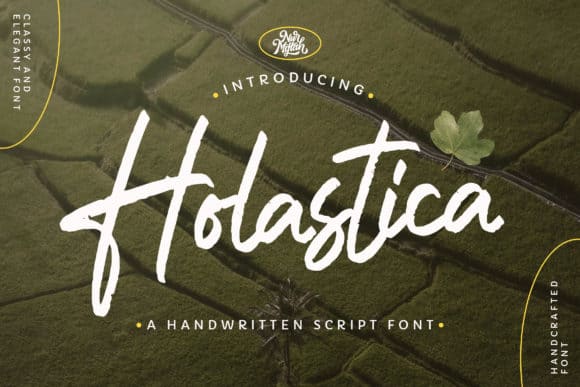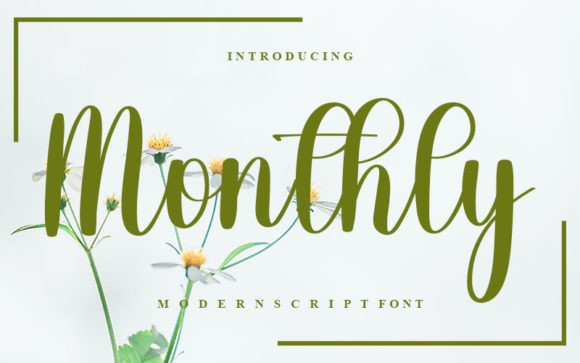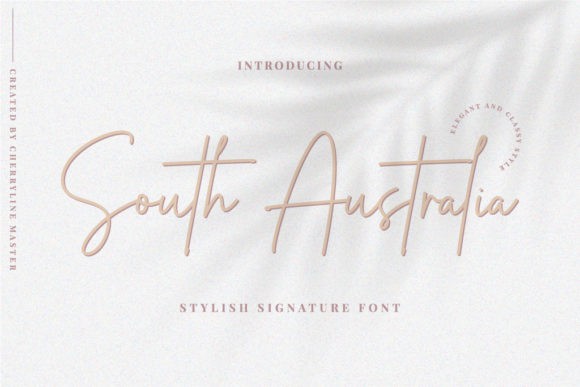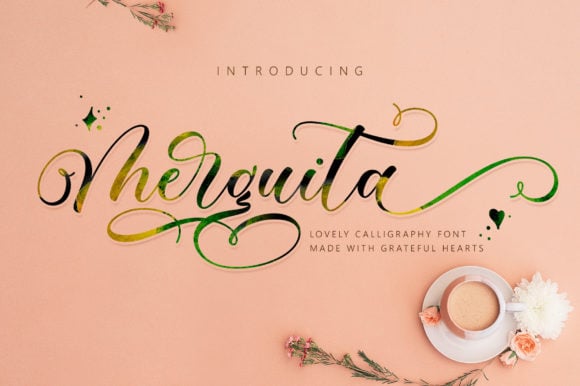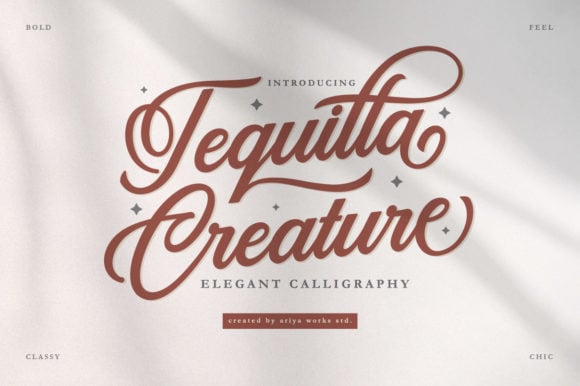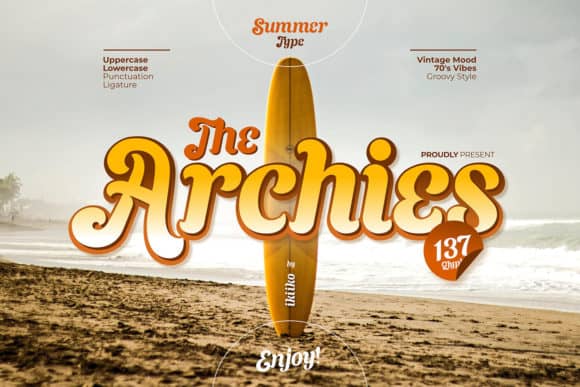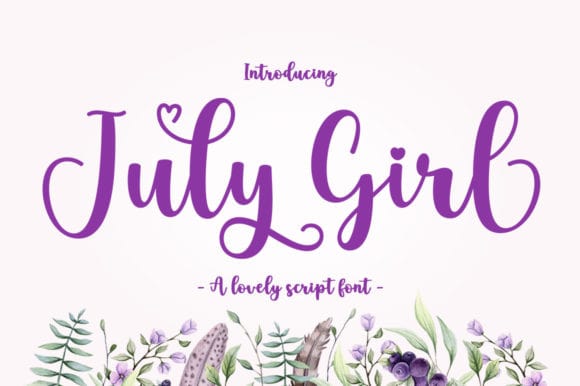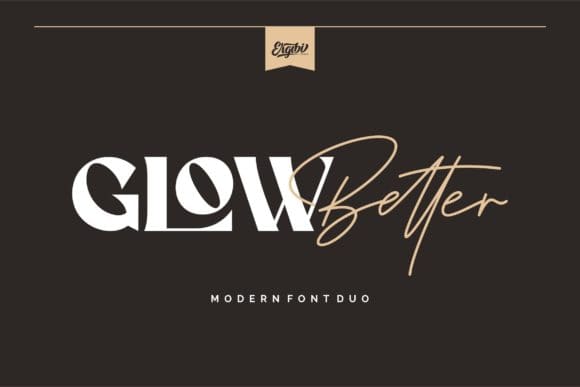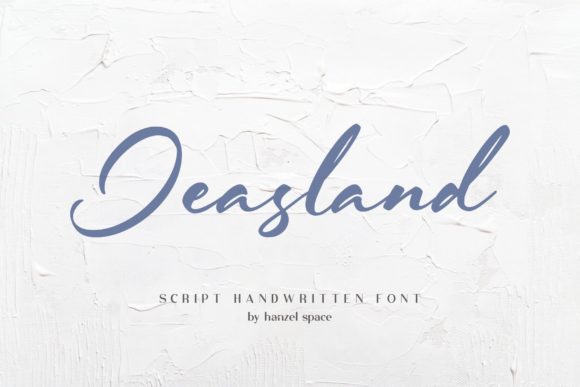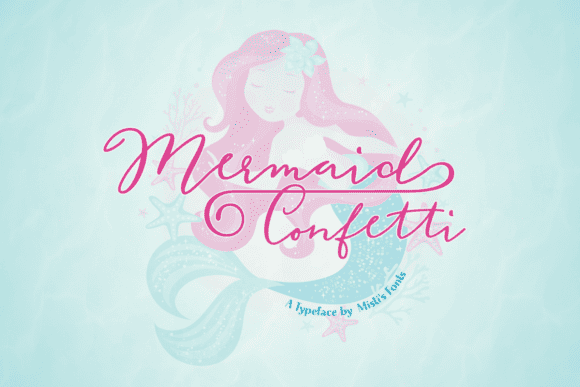
1. Holastica Font
Holastica is a lovely and relaxed script font that exudes elegance and class. This font was particularly crafted for those who need a beautiful and refreshing look to their designs.
2. Monthly Font
Monthly is a sweet, whimsical and flowing script font. Featuring characters that dance along the baseline, this font will add a luxury spark to any design project that you wish to create!
3. South Australia Font
South Australia is a lovely and timeless handwritten font. It is the best choice for creating eye catching logos, branding and quotes. Every letter has a unique and beautiful touch, which will make your design come alive!
4. Merguita Script Font
Merguita Script is an exquisite handwritten font, masterfully designed to become a true favorite. It maintains its classy calligraphic influences while feeling contemporary and fresh. This font is PUA encoded which means you can access all glyphs and swashes with ease!
5. Tequilla Creature Font
Tequilla Creature is a beautiful and refined script font. It has a classy, elegant and modern look that can be used for logos, branding, invitations, stationery, wedding designs, social media posts, and much more!
This font is PUA encoded which means you can access all of the beautiful glyphs and swashes with ease!
6. The Archies Font
The Archies is a beautiful handwritten font that has vintage-styled characters and gives off some cool, holiday vibes. This typeface is perfect for a holiday greeting, summer camp poster, vacation title, tropical designs, and so much more!
7. July Girl Font
July Girl is a lovely and timeless handwritten font. It is the best choice for creating eye catching logos, branding and quotes. This font is PUA encoded which means you can access all of the glyphs and swashes with ease!
8. Glow Better Font
Glow Better is a lovely duo font (serif and script), crafted to give your headlines and logotype projects a stylish touch. This font reads as strong, confident, and dynamic and can add tons of nostalgic character to your designs. Glow Better is PUA encoded which means you can access all of the glyphs and swashes with ease!
9. Jeasland Script Font
Jeasland Script is a lovely and delicate script font that exudes elegance and class. This font was particularly crafted for those who need a beautiful and refreshing look to their designs.
10. Mermaid Confetti Font
Mermaid Confetti is a magical script font carefully created with a touch of elegance. Whether you’re looking for fonts for Instagram or calligraphy scripts for DIY projects, this font will turn any creative idea into a true piece of art!
Mermaid Confetti is PUA encoded which means you can access all of the glyphs and swashes with ease!